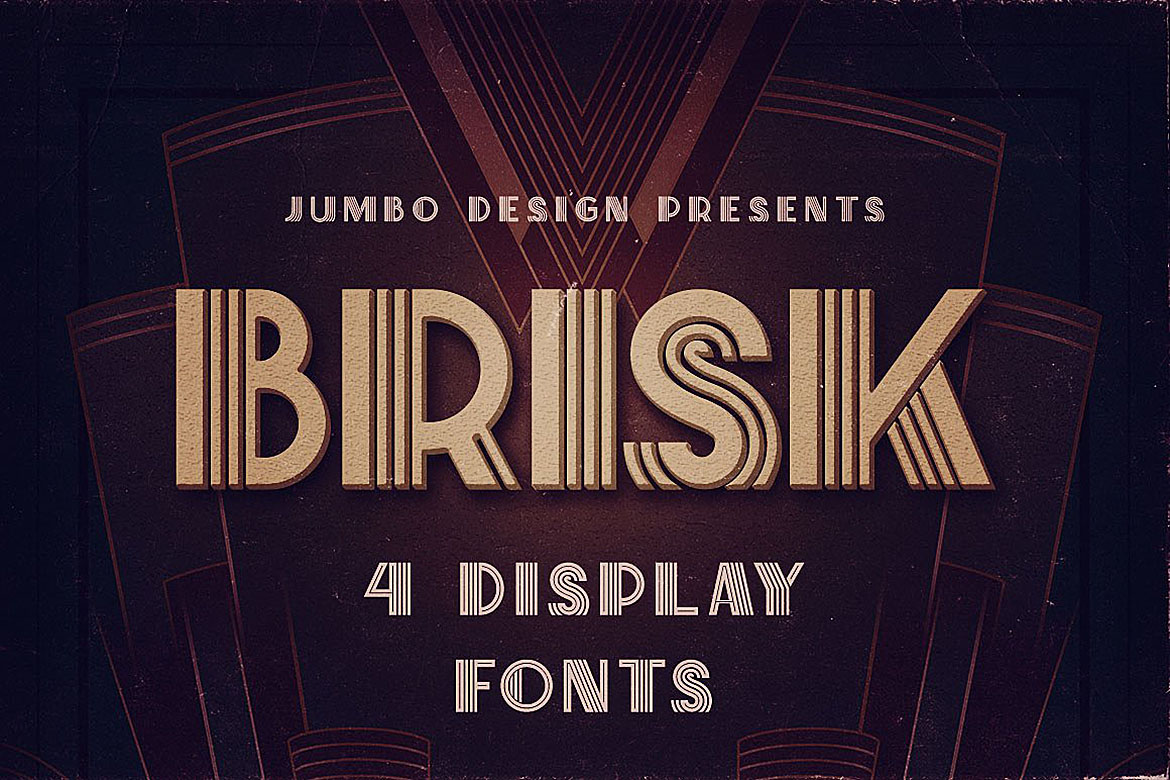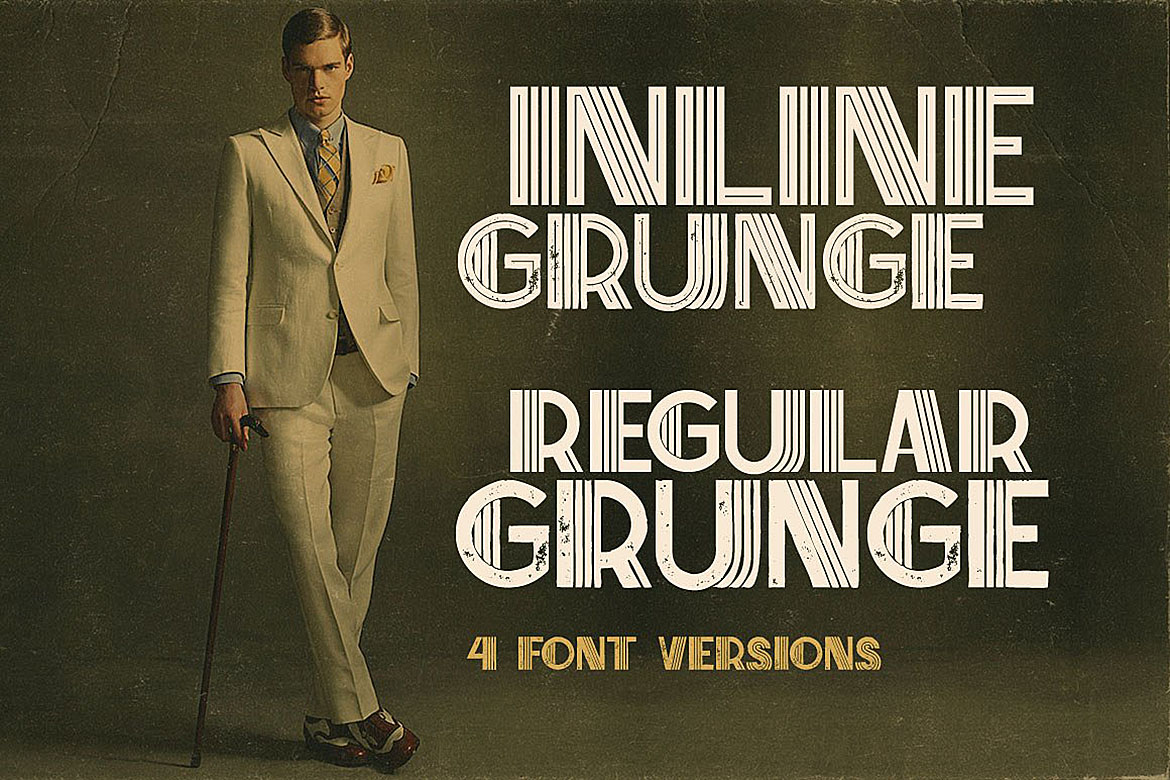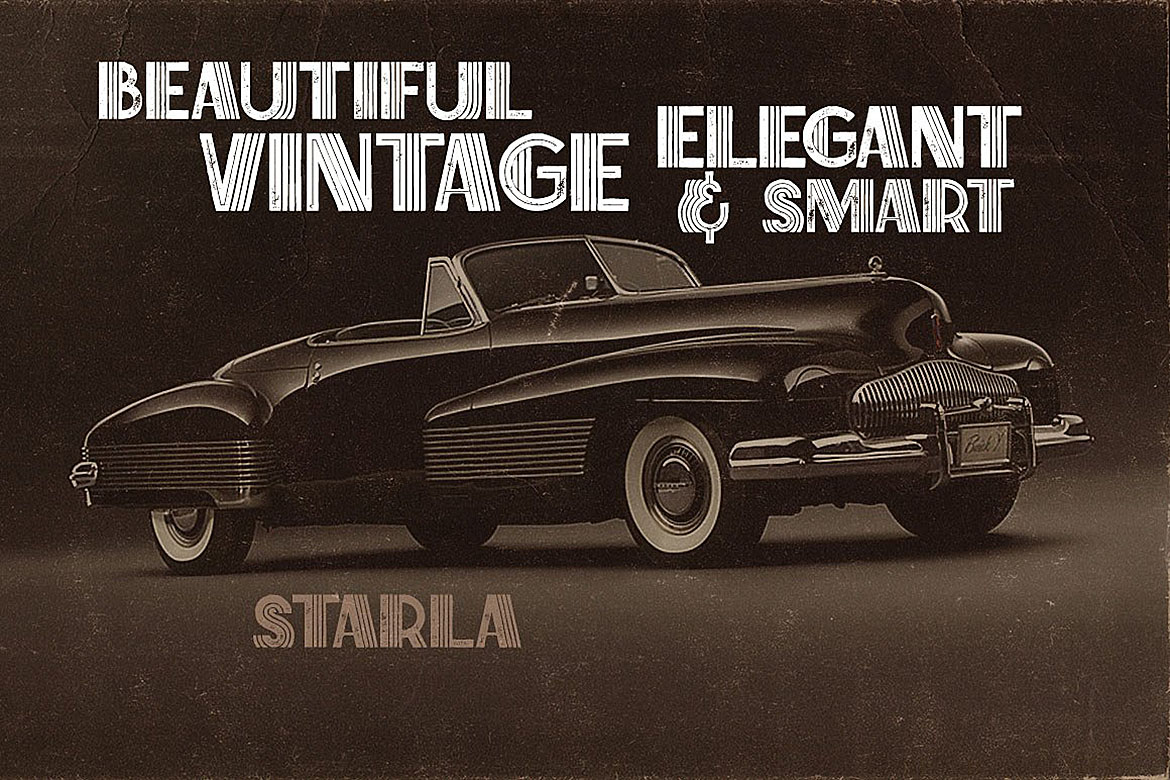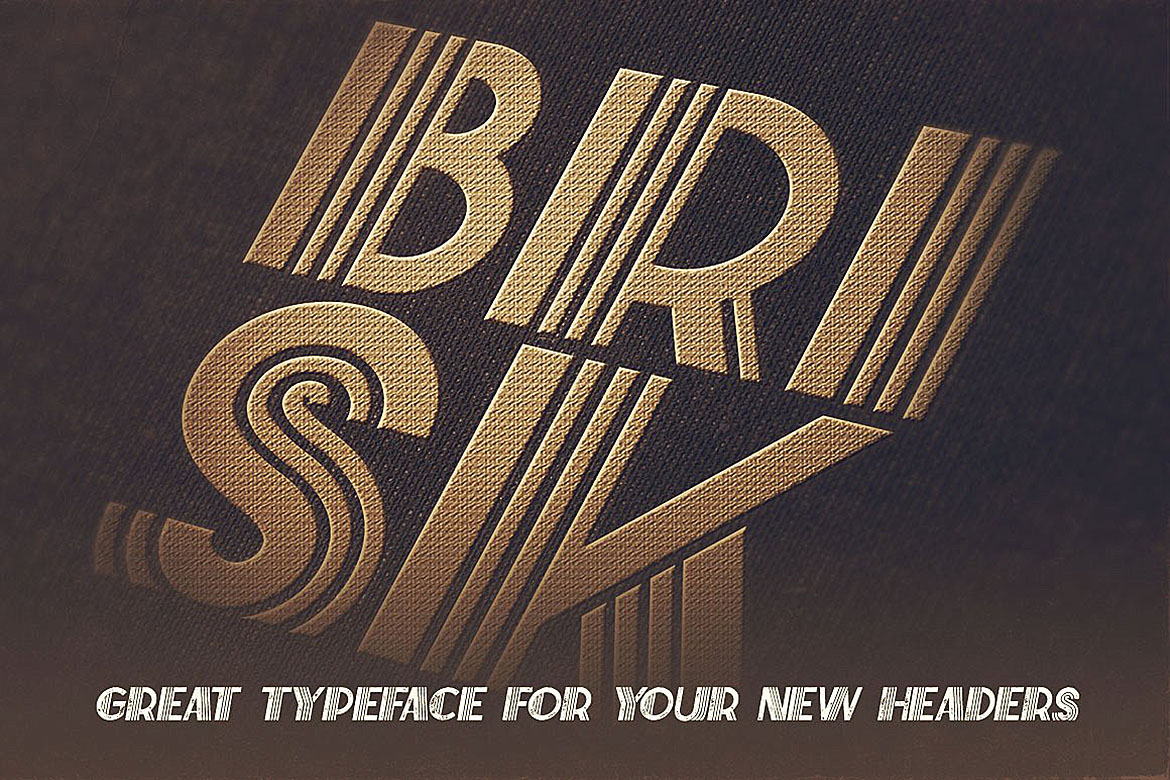
Brisk Font: Retro Art Deco Display Font for Unique Logo Design
About the Brisk Font
Introducing the Brisk Font, a beautifully crafted typeface designed to elevate your creative projects. Brisk is a unique font inspired by art deco sensibilities and design. This retro font comes with 4 different styles for the ultimate in customization and design!
Brisk’s bold, geometric forms make it ideal for headlines, logos, and short, impactful text in branding materials and posters. Its Art Deco influences lend themselves well to packaging design for luxury or vintage-inspired products. However, its condensed letterforms and relatively high x-height make it less suitable for extended body text or UI elements where readability is paramount.
Pairing Brisk effectively depends on the desired mood. For a sophisticated feel, consider pairing it with a classic serif like Garamond or a clean sans-serif like Helvetica Neue. To emphasize its playful retro energy, a script font like Great Vibes or a more geometric sans-serif like Futura would create a dynamic contrast.
Brisk projects a confident and modern personality, with a touch of vintage flair. Its strong verticality and geometric structure convey a sense of energy and sophistication, making it perfect for brands aiming for a bold yet refined aesthetic.